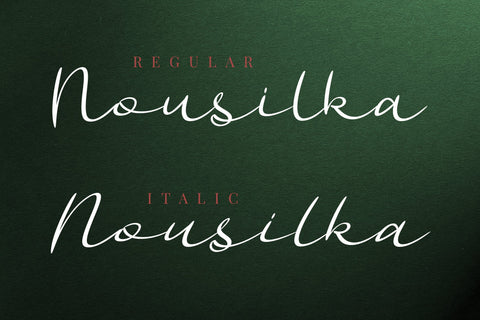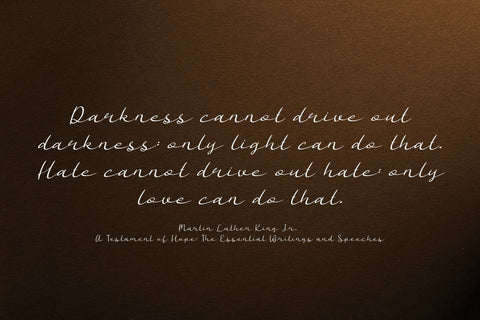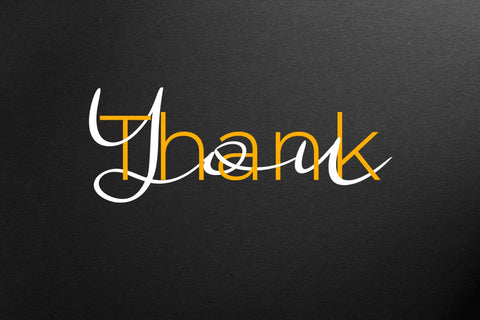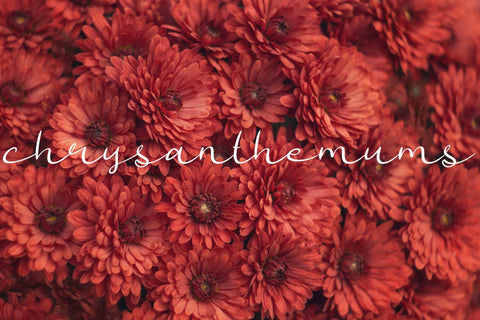
Nousilka | Modern Bouncy Script Font
Nousilka is a modern and bouncy script font, perfect for branding projects, wedding invitation and so much more romantic ideas. Fall in love with its incredibly versatile style and use it to create spectacular designs!